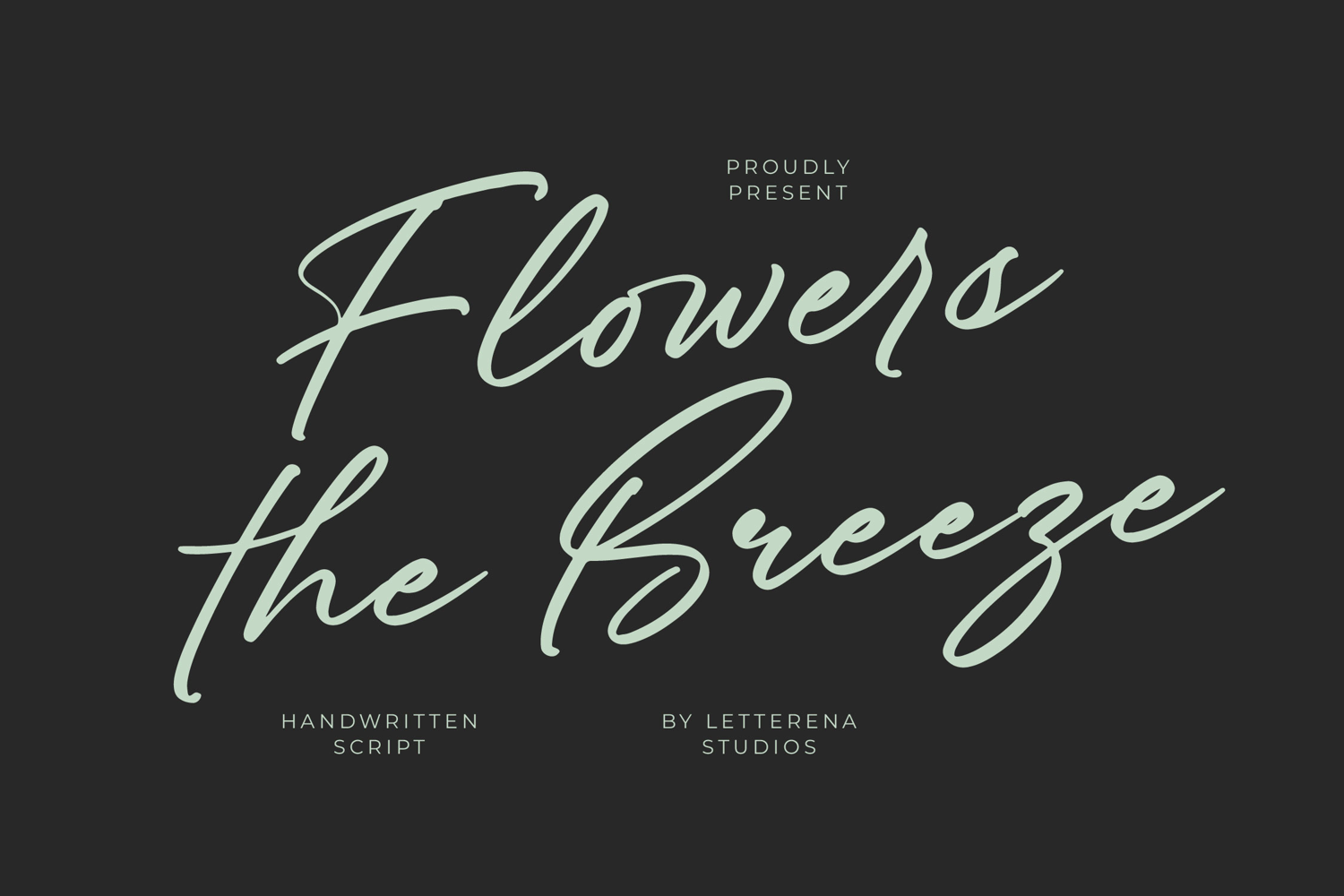
Flowers the Breeze - Handwritten Script
Flowers the Breeze
Flowers the Breeze Italic
Flowers the Breeze - Handwritten Script , from Letterena, is a Luxury Script font, suitable for any projects such as: logos, branding projects, homeware designs, product packaging, mugs, quotes, posters, shopping bags, t-shirts, book covers, name card, invitation cards, greeting cards, label, photography, watermark, special events, and all your other luxury and beautiful projects that need a Luxury Script taste.
99 Ligature 26 Alternate & Swashes